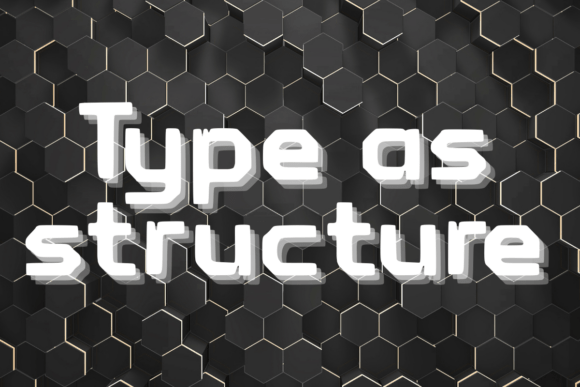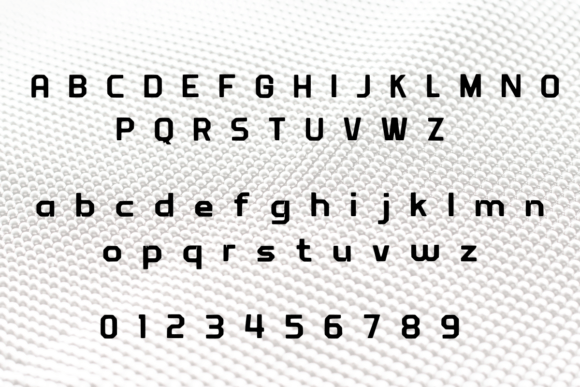
Introduction to Gridcut Font
Do you remember that moment when you’re working on a creative project, and you just can’t find the right font to bring your design to life? You’ve got a clear vision, but it’s all just missing that special something. For designers like us, it’s a familiar feeling. But what if I told you there’s a font that can give your projects a bold, high-impact edge?
Enter Gridcut Font, a game-changing design resource that’s been making waves in the creative community. With its unique blend of brutalist and mid-century modern aesthetics, Gridcut Font is the perfect solution for designers looking to add some serious style to their work. Whether you’re working on striking posters, album covers, or bold brand packaging, Gridcut Font is the ultimate design tool.
As a valuable resource for designers, Gridcut Font offers a high-quality, free download that’s perfect for projects of all kinds. From tech-forward graphics to urban merchandise, Gridcut Font’s sharp, structured forms are sure to make your designs stand out. And with its transparent background, you can easily layer it over any background image or color. It’s a design must-have that’s sure to take your creative projects to the next level.
Key Features of Gridcut Font
- Unique geometric shapes and lines that create a distinctive visual effect, ideal for creative projects.
- High-quality font with a transparent background, making it easy to use in various design settings.
- Unique characteristics: Gridcut Font features a grid-based design with sharp, clean lines, perfect for creating a modern and minimalist aesthetic.
Honest Review: Gridcut Font
I recently came across the Gridcut Font, and I must say it’s been a game-changer for my creative projects. This font is a high-quality design resource that’s perfect for anyone looking to add a touch of sophistication to their work.
- ⚠️ Limited character set, which may not be suitable for long-form content
- ⚠️ May not be suitable for small text sizes due to its bold design
Overall, I’m really impressed with the Gridcut Font. It’s a great addition to any designer’s toolkit, and I’ve already used it in several of my recent projects. The high-quality design and transparent background make it a versatile resource that’s perfect for a variety of creative projects.
Gridcut Font
The Gridcut Font is a versatile and high-quality design resource perfect for any creative project. With its transparent background, this font can be easily integrated into various design tools.
Tips for Getting the Most Out of Gridcut Font
To get the most out of the Gridcut Font, try the following:
- Experiment with different font sizes and styles.
- Use the font in combination with other design elements for a unique look.
The Gridcut Font is perfect for:
- Designing digital products and websites.
- Creating marketing materials and brochures.
- Developing brand identities and logos.
Alternatives to Gridcut Font
Compared to Gridcut Font, Dyna Puff Font has a more rounded and soft design aesthetic, making it suitable for projects that require a friendly and approachable tone. It lacks the sharp edges and modern feel of Gridcut Font, but it’s a great choice for designers who want to add some personality to their work.
Montserrat Font is a high-quality design resource that offers a clean and modern sans-serif design. It’s perfect for projects that require a professional and sophisticated look. You can download it for free, but it’s also available for purchase in various formats.